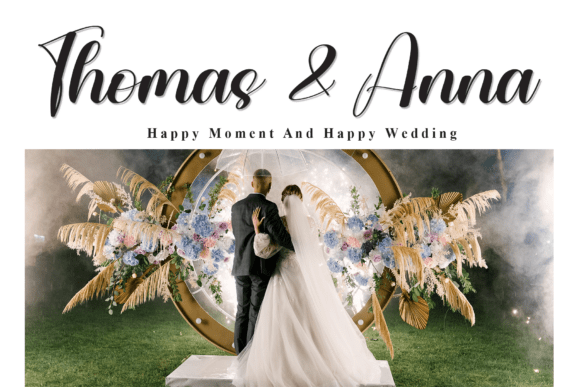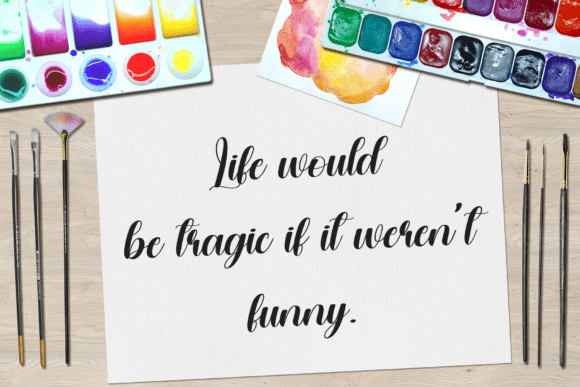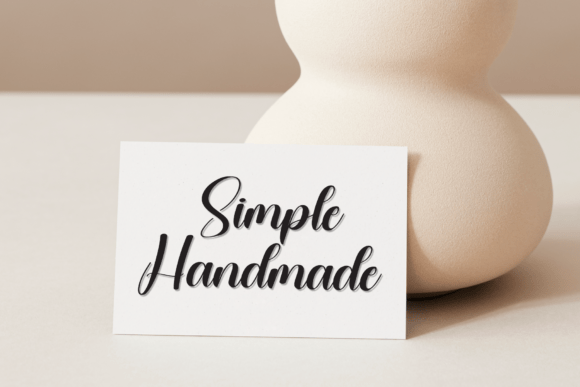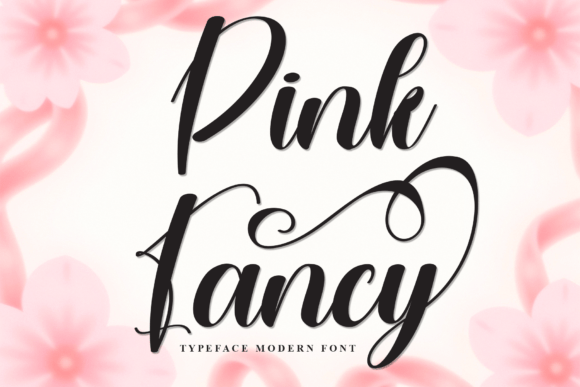
Introduction to Pink Fancy Font
Pink Fancy is a bold and rhythmic modern script that exudes femininity and artistic energy.
The typeface is characterized by thick, brush-like downstrokes and delicate hairline connectors, creating a high-contrast visual flow It features dramatic, looping flourishes on characters like the “f,” which gives the text a customized, calligraphic feel.